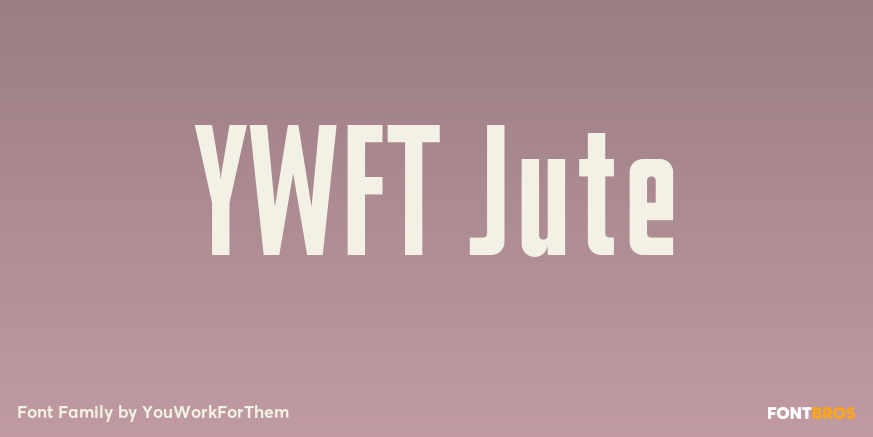
YWFT Jute
About YWFT Jute
YWFT Jute is a masculine, military, sans-serif design that was realized through a series of revisions to another typeface design called Flier. The constant reworking of Flier gave it a completely different look and feel, and thus was YWFT Jute forged.…